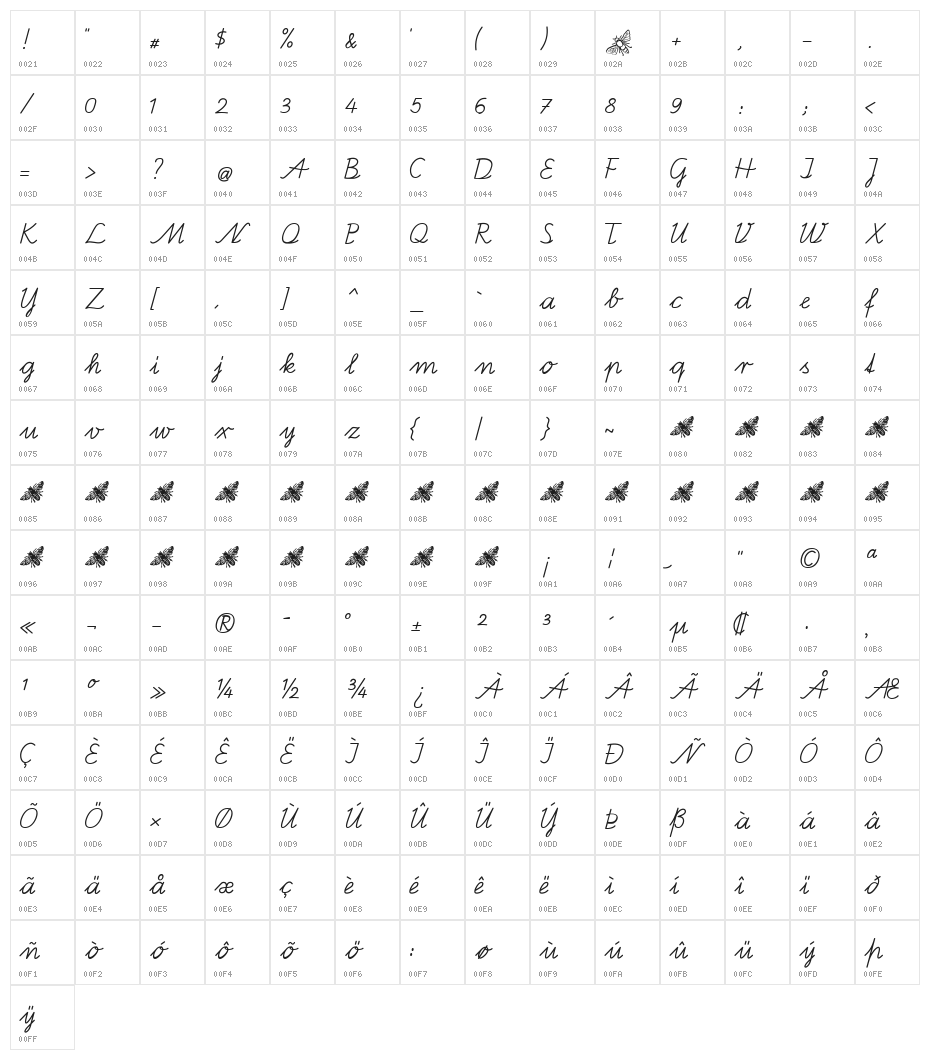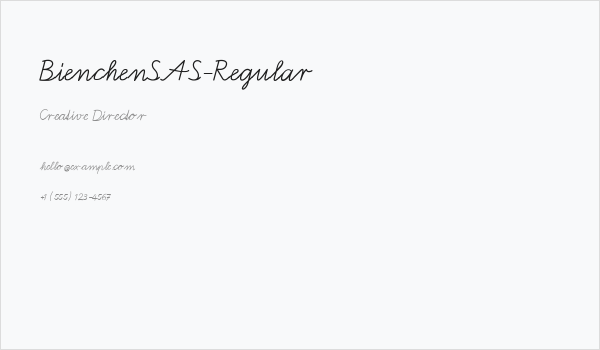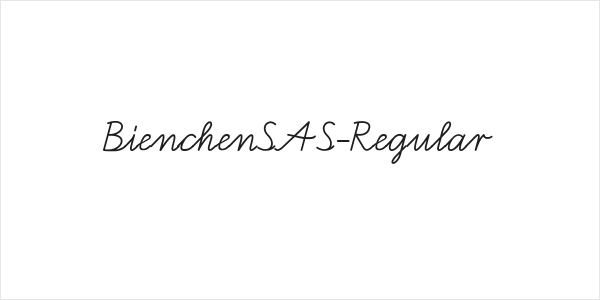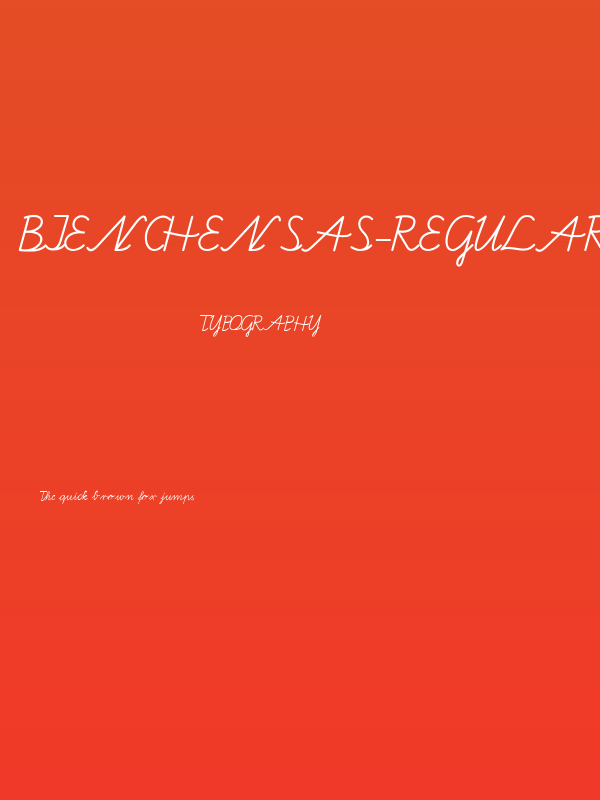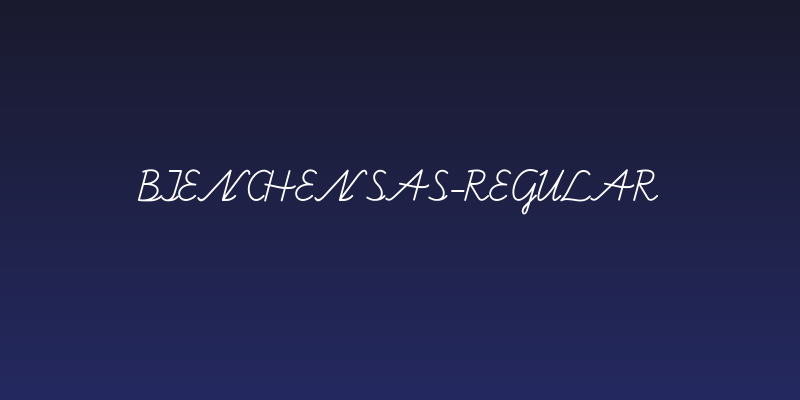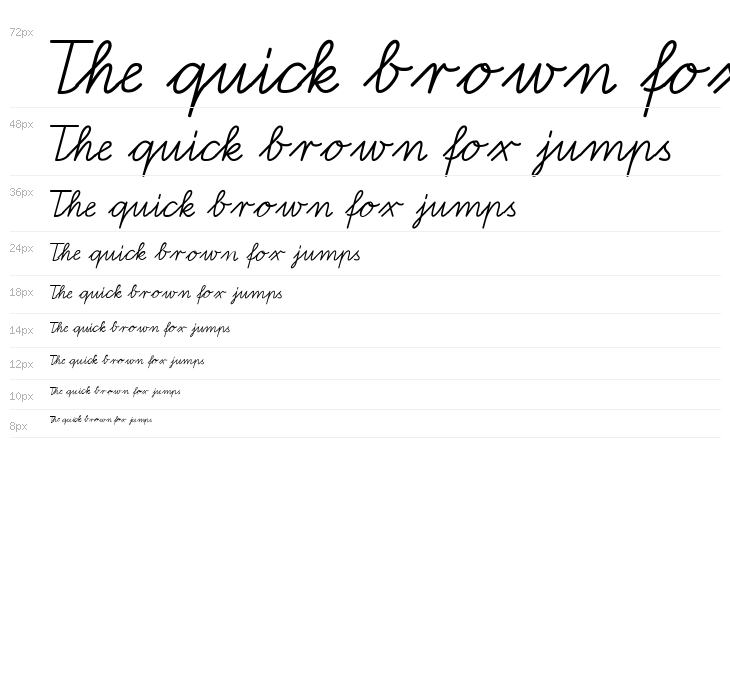
BienchenSAS-Regular Font
BienchenSAS-Regular Description
This font exudes a playful and whimsical charm, characterized by its flowing, cursive style. The letters are elegantly connected, creating a sense of movement and fluidity. The uppercase letters maintain a consistent height, while the lowercase letters feature gentle loops and curves, adding to the font's graceful appearance. The numerals are clear and easy to read, complementing the overall style. Special characters are thoughtfully designed, with a unique bee illustration adding a touch of creativity. This font is perfect for projects that require a personal, handwritten touch, such as invitations, greeting cards, or creative branding.
Overall StyleWhimsical
Use CaseLogos, Invitations, Greeting Cards
Proposed ProjectsIdeal for invitations, greeting cards, creative branding, and personal projects.